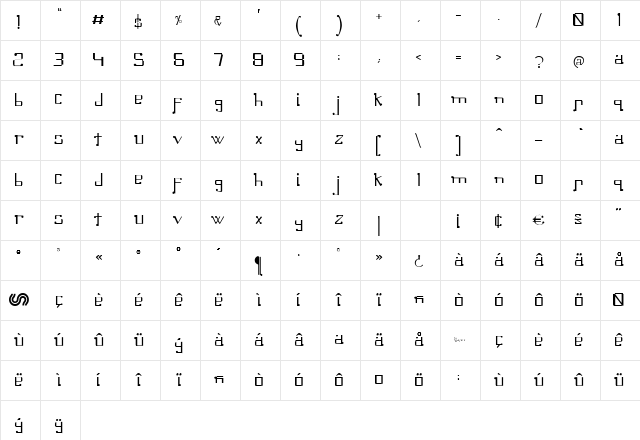
Omellons Light Free Font
Omellons Light
Design Context for Omellons
Omellons is a composed and adaptable typeface that performs quietly and consistently across a wide range of design contexts. Its slender proportions lend an understated elegance to any composition.